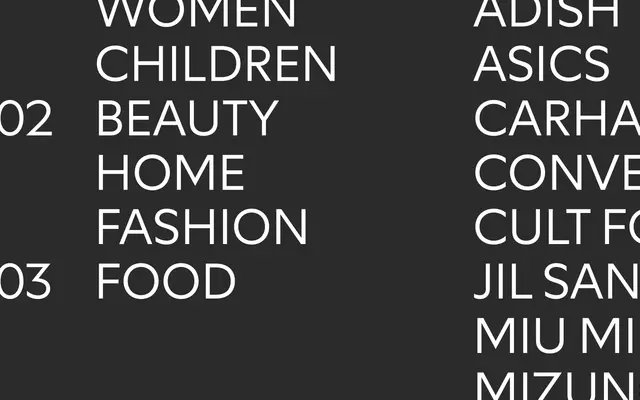
Neurath specimen from Studio Rene Bieder
A geometric sans in nine weights with matching italics, offering a broad suite of OpenType alternates including multiple single-character variants and case-sensitive forms.
Spanning Thin to Black with full italic companions across all eighteen styles, Neurath is built for versatility in editorial and corporate contexts. OpenType features include tabular figures, fractions, discretionary ligatures, case-sensitive forms and a generous set of alternates covering 'a', 'y', 't', 'ß', 'G', arrows and the ampersand. The clean, rationalist construction places it firmly in the mid-European geometric sans tradition, with enough character variation to avoid blankness.
Neurath presents as a geometric sans with clean, rationalist construction and a broad weight range typical of the genre. The alternate character set including single-storey 'a' and alternate 'g' and 'y' reinforces its geometric lineage.